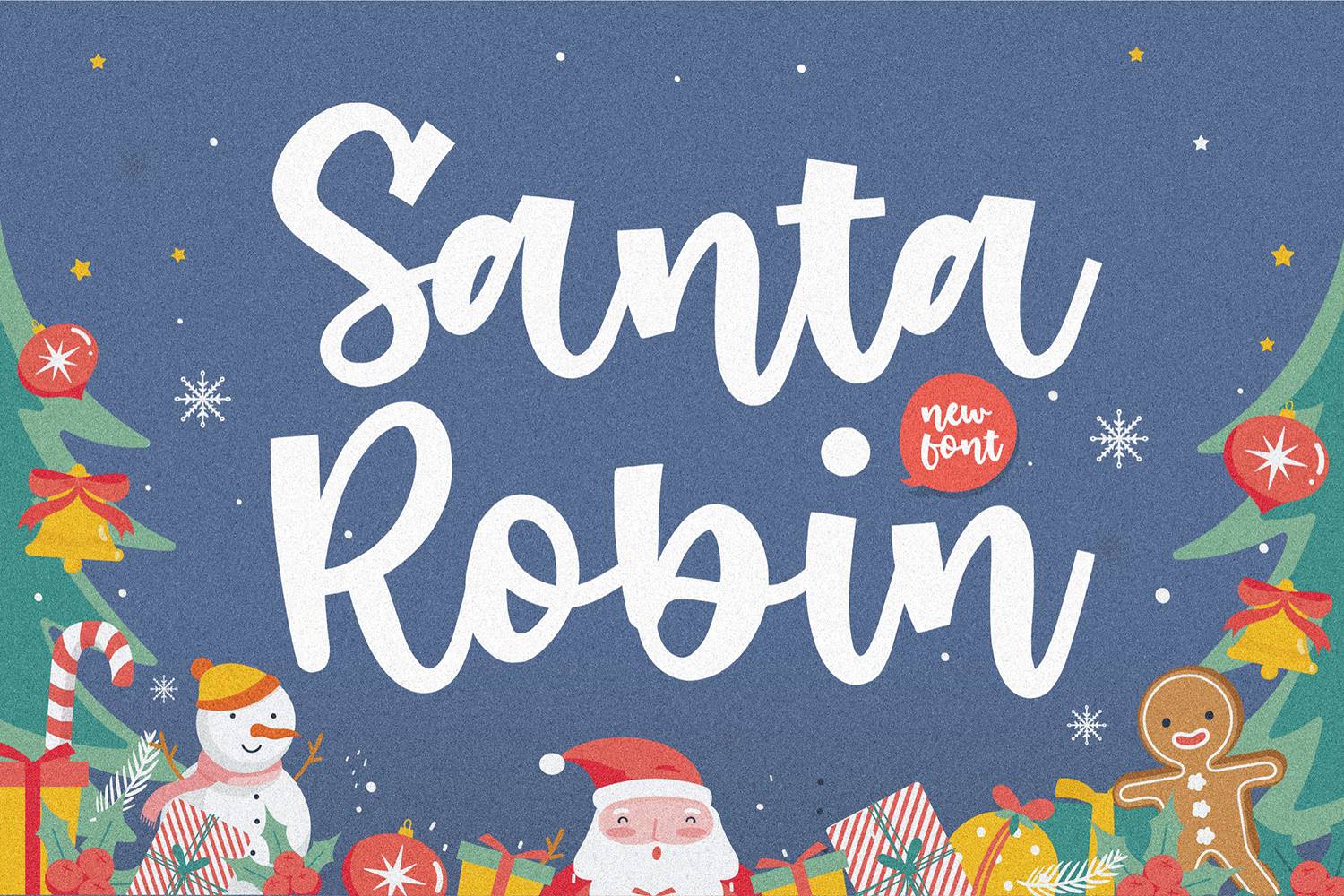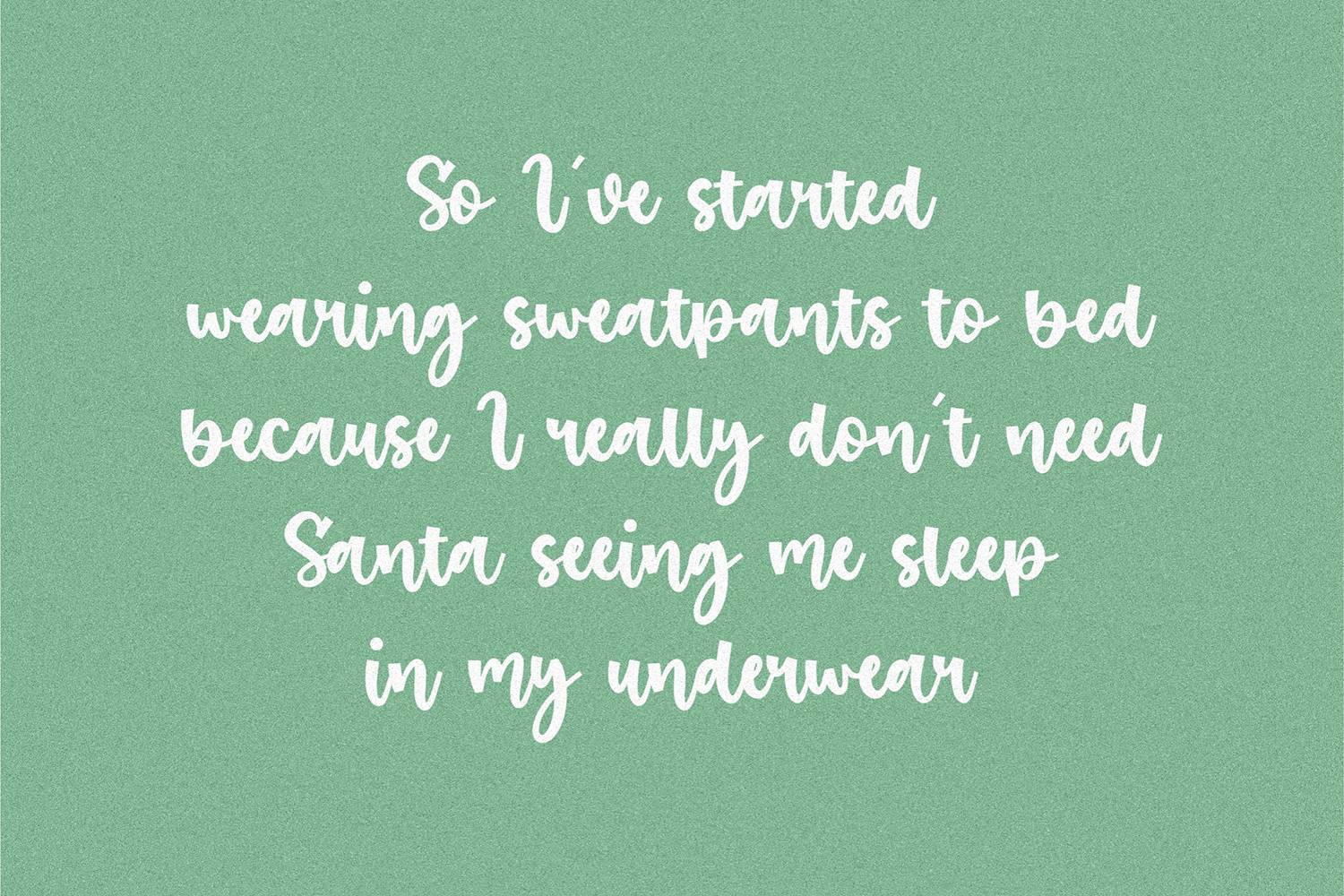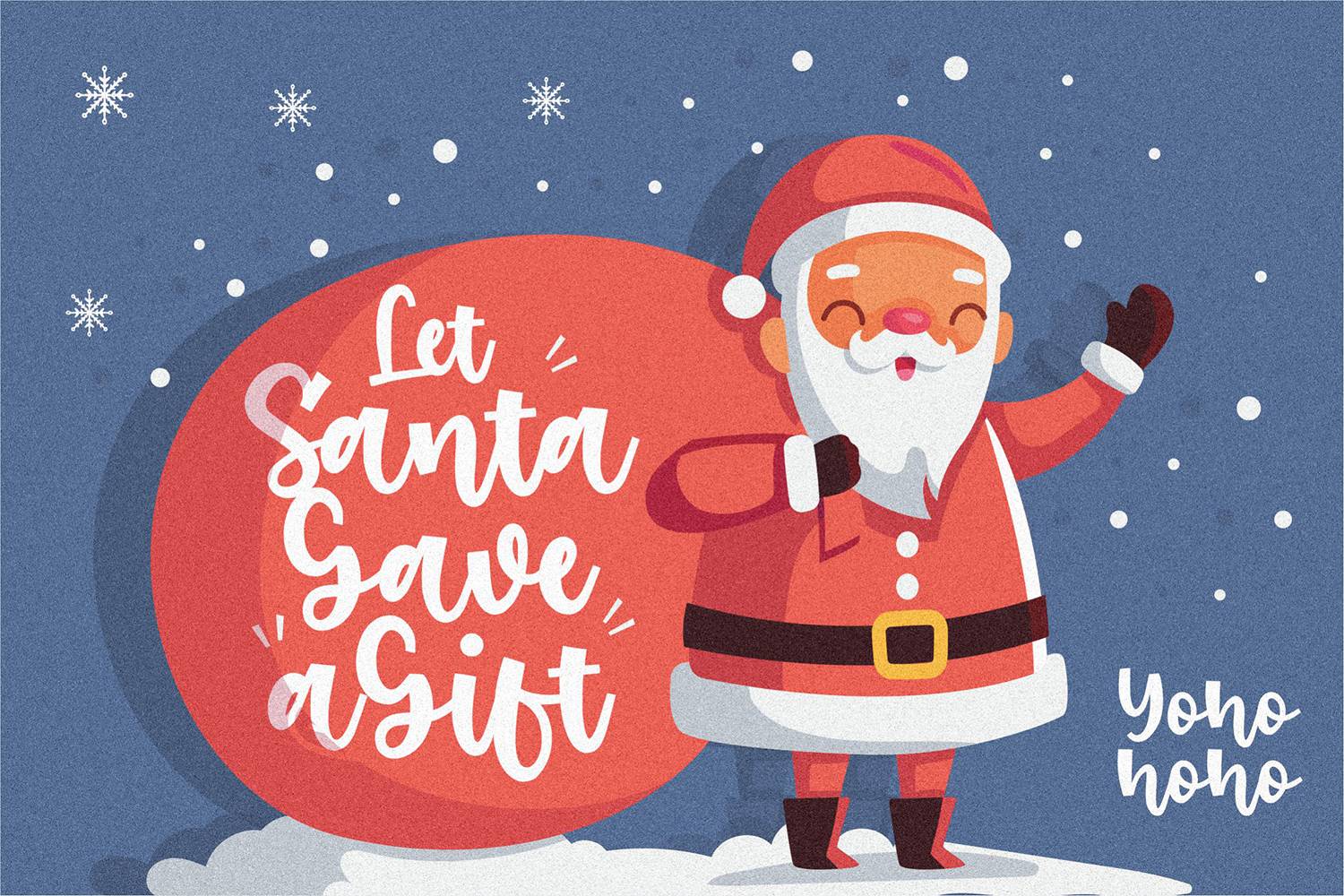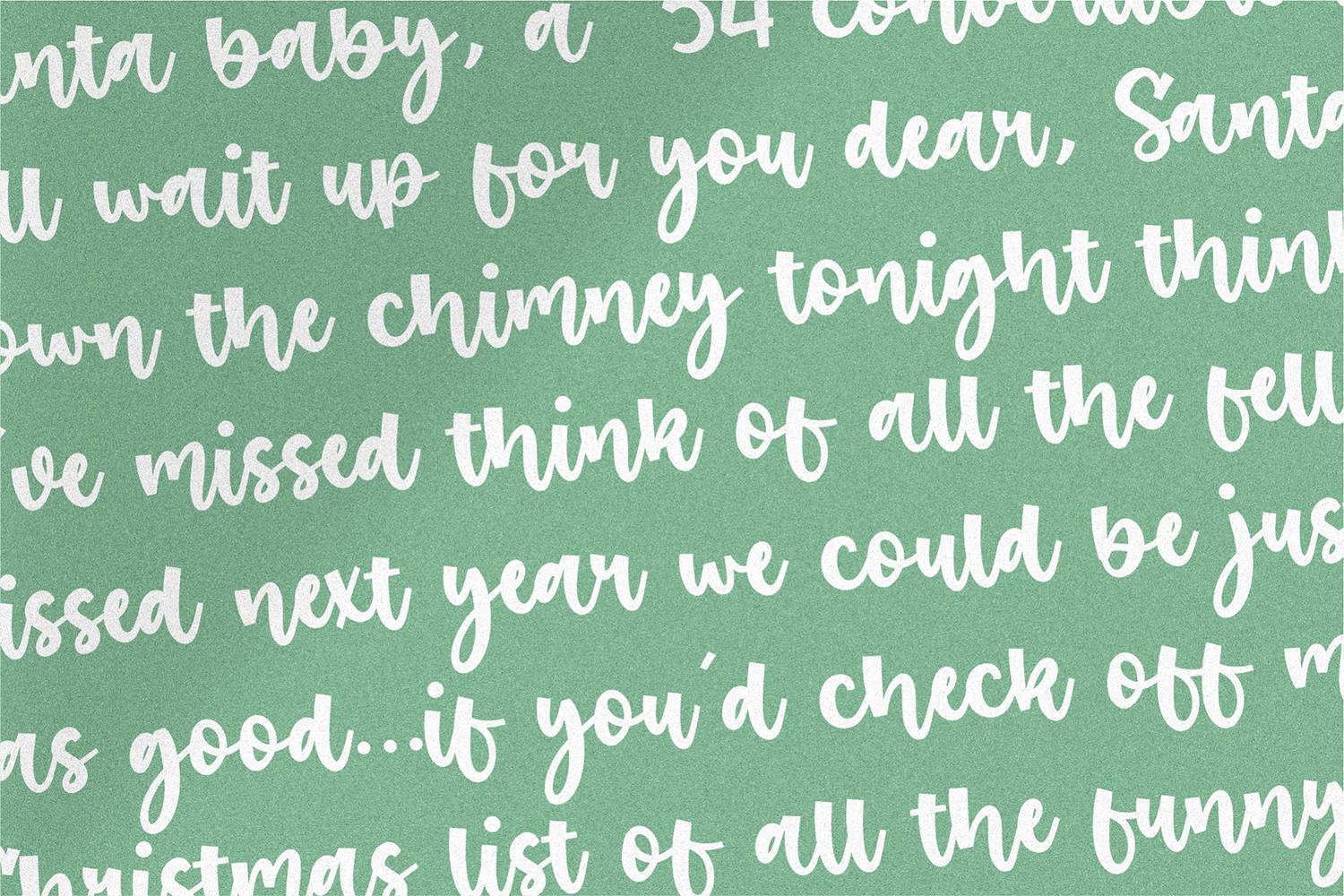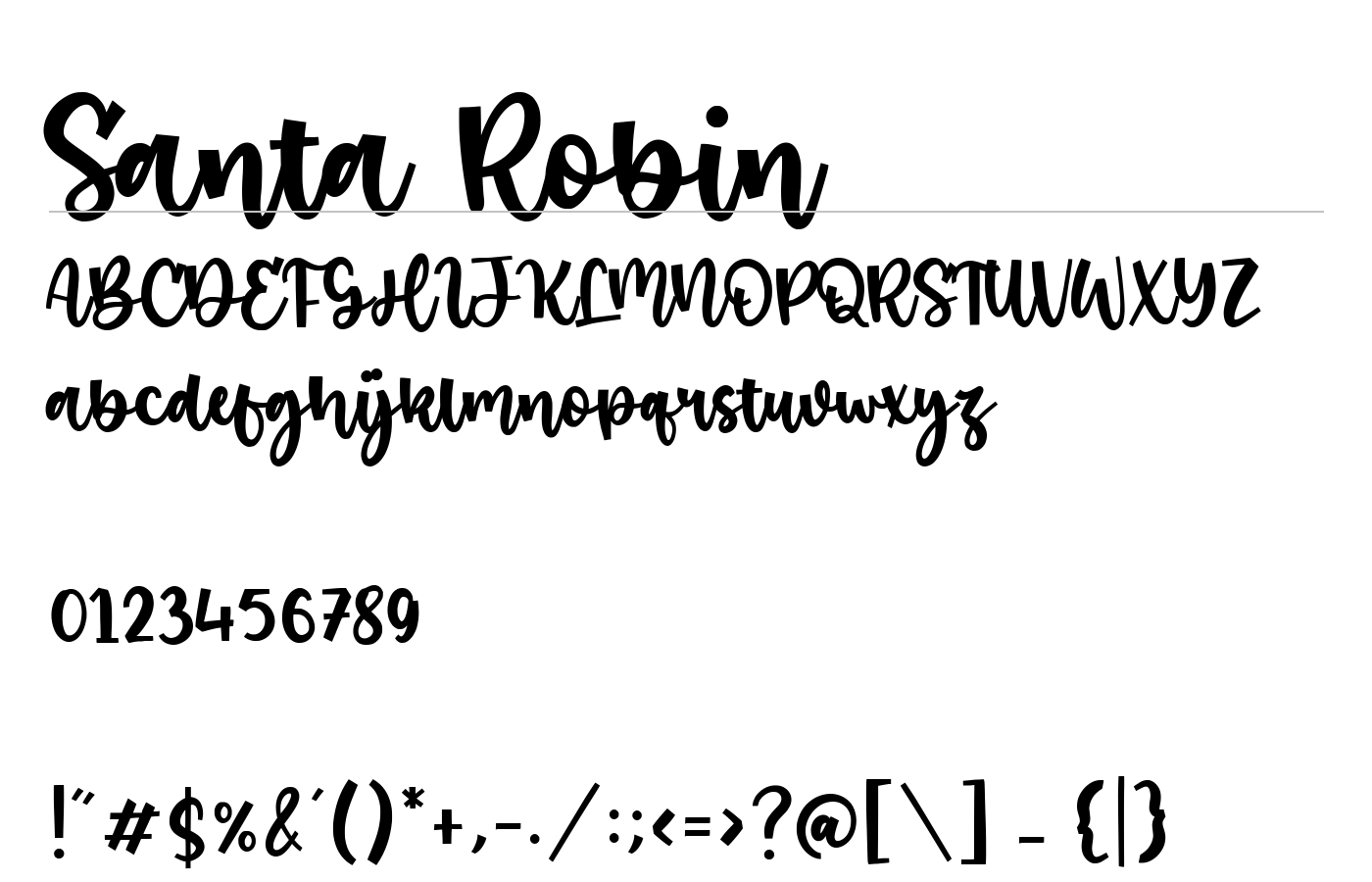
Santa Robin is a playful, casual script font with a bold yet friendly appearance, featuring smooth, rounded strokes and lively, slightly irregular letterforms that give it a hand-drawn charm. Its high x-height and consistent stroke weight make it both approachable and readable, ideal for creative projects that need a warm, personal touch like invitations, branding, and social media graphics.
Santa Robin Font